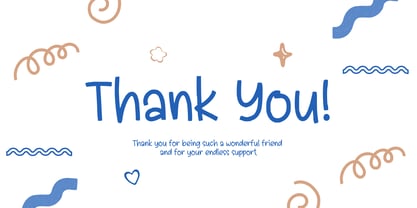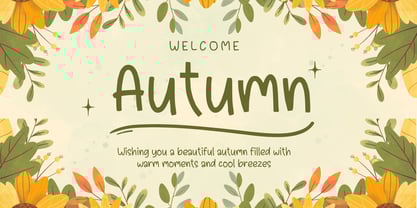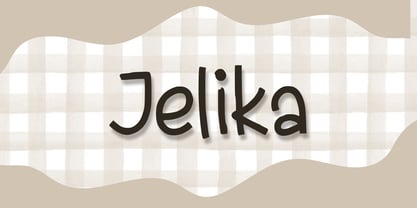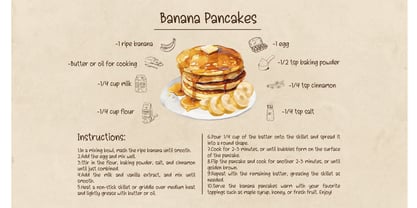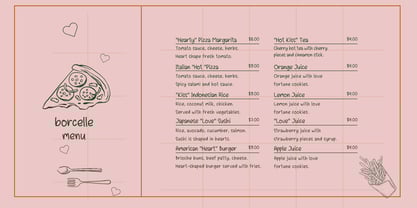
Jelika
by Aisyah
The Jelika Font Family was designed by Nur Aiysah Amalia and published by Aisyah. Jelika contains 1 styles. More about this family
Introducing Jelika - an effortlessly cool and casual handwriting font! This versatile typeface seamlessly integrates into your design projects, from creative crafting endeavors to professional business ventures, adding a touch of personalized charm. Jelika strikes the perfect balance between stylistic expression and functionality, making it a valuable addition to any designer's toolkit.
Designers: Nur Aiysah Amalia
Foundry: Aisyah